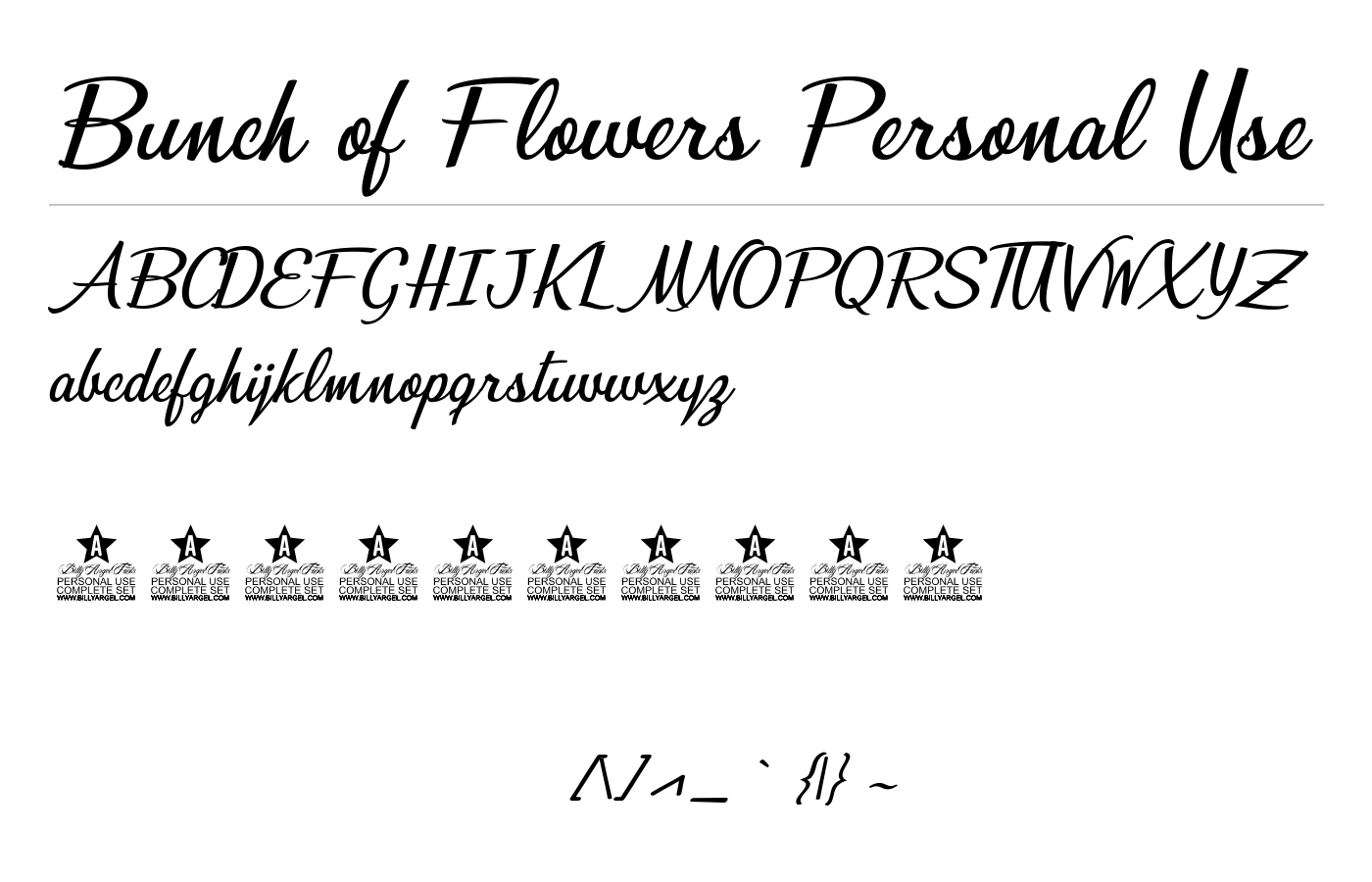
Bunch of Flowers is a delicate script font with elegant, flowing letterforms that mimic natural handwriting. Its slender strokes and smooth curves give it a graceful, personal touch, making it ideal for invitations, branding, and creative projects that seek a warm, feminine feel. This font works beautifully in designs where a charming, handwritten style adds sophistication and approachability.
Bunch of Flowers Personal Use Font
About Bunch of Flowers Personal Use Font